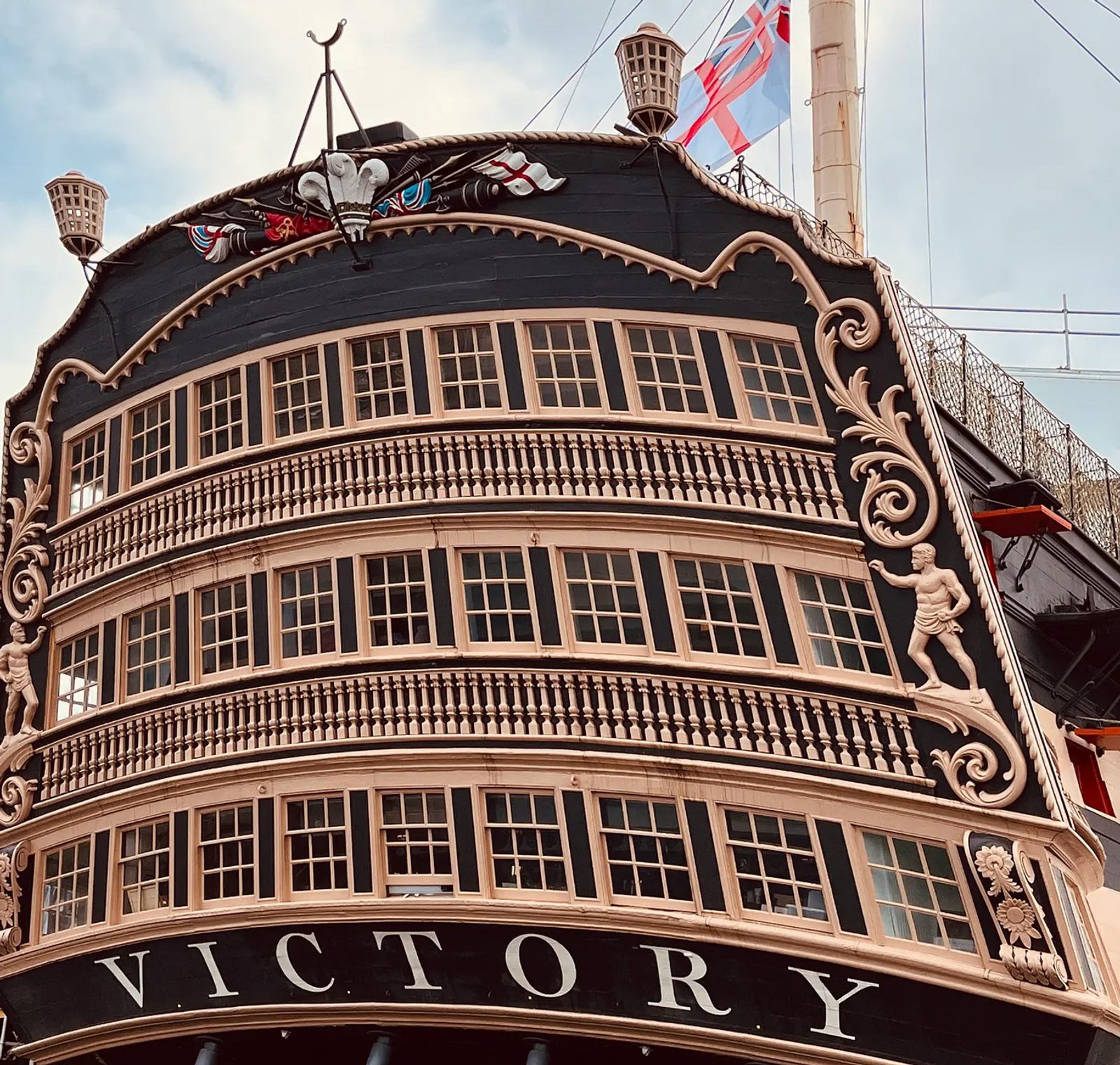
HMS Victory
Victory
Victory is a classical serif family designed by Nick Cooke, inspired by lettering on the stern of the 104 gun wooden sailing ship HMS Victory, the world’s oldest naval vessel still in commission (picture credit: Anton Krutikov).
The standard variants are accompanied by higher contrast display versions of each font style in weights ranging from ExtraLight to ExtraBold; Variable format is bundled free when purchasing the complete Victory volume containing both Regular & Display options.
Each font features an extensive character set that includes many alternates & ligatures, plus small caps and multiple figure sets.
Months of meticulous crafting and attention to the tiniest detail has resulted in an elegant serif with both text & display variants for maximum versatility.
Nick Cooke
Regal
The complete Victory volume contains additional Variable versions in upright and italic styles, with axes enabling unlimited intermediate weight and optical size options using a single font file.
Chess
Checkmate!
Victory
Victory: epic, hard-fought, or perhaps pyrrhic?
Victory Display
Victory: epic, hard-fought, or perhaps pyrrhic?
Victory contains an extended Latin character set with small caps, alternates and multiple stylistic & figure sets.